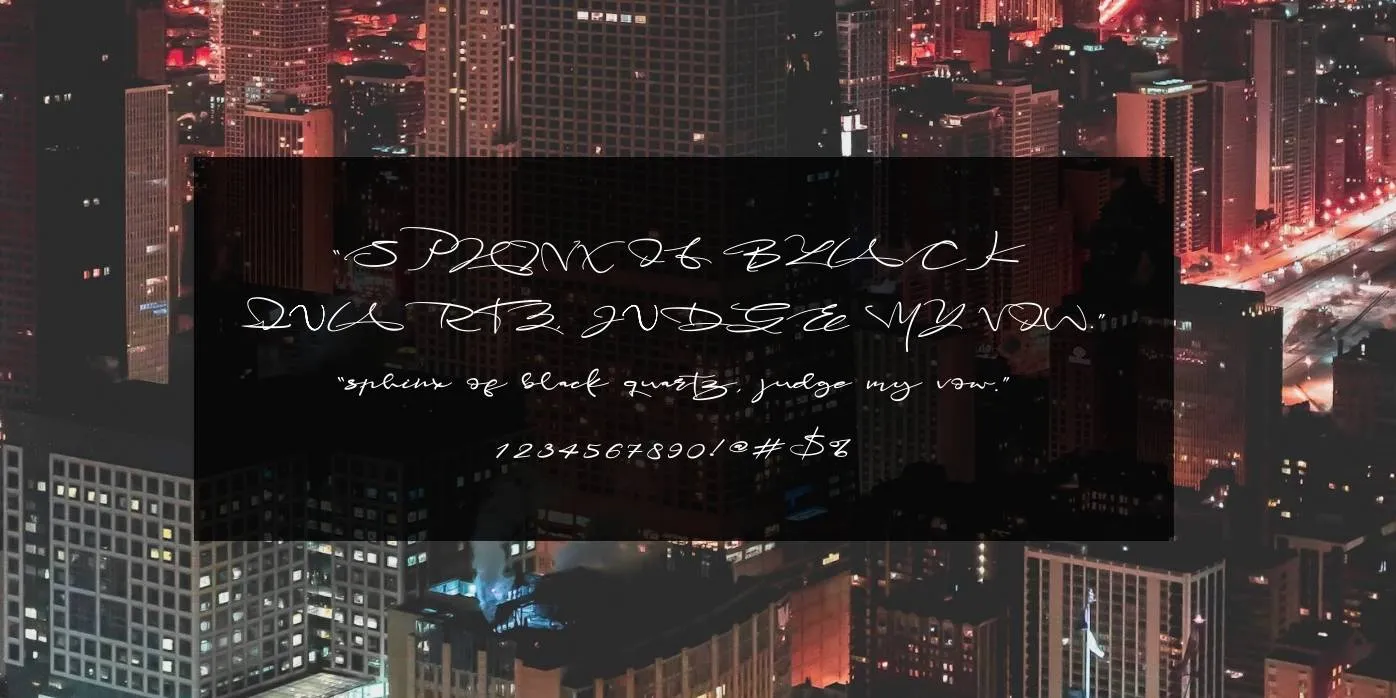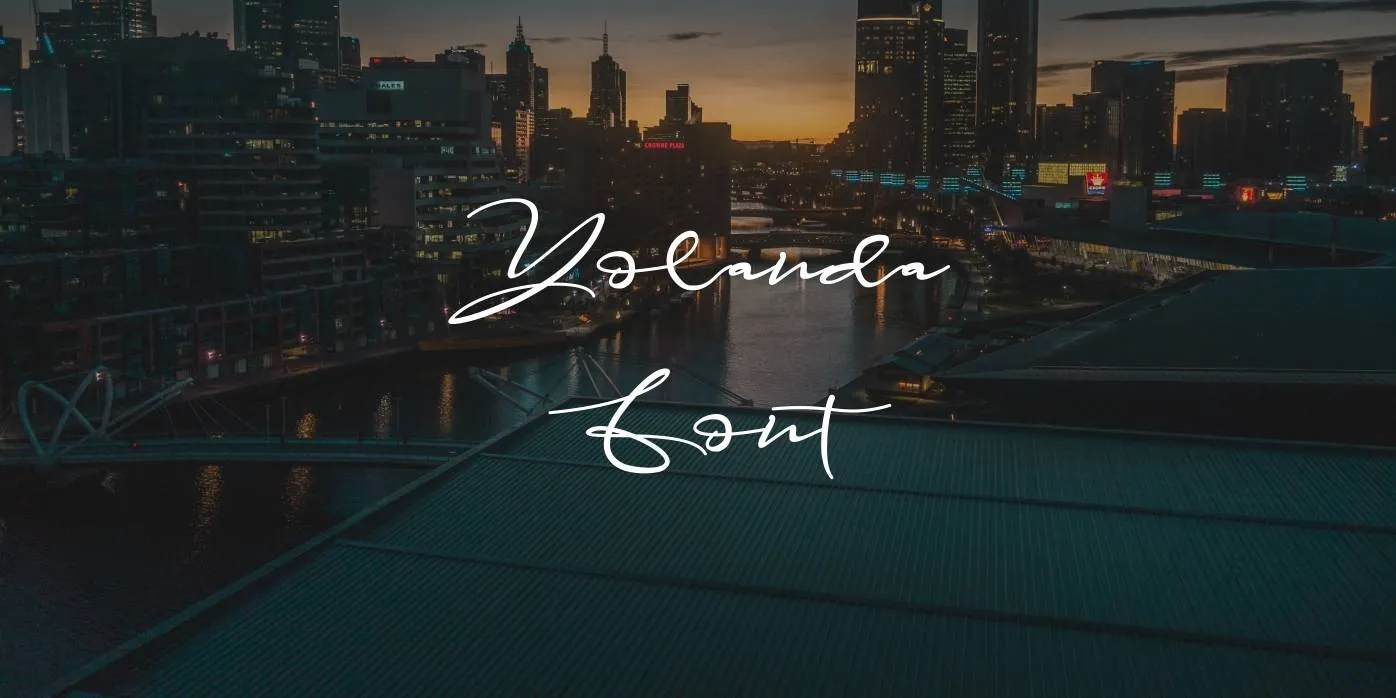
Yolanda Font
Here, we present a very classy font family that is famous with the name Yolanda Font. This family belongs to the Script family. This awesome font family was designed by Alqawoms. This stylish font family was published for the first time by Nontype.
The Yolanda Font family comes with a unique and attractive design. This family includes many features such as discretionary ligatures, contextual alternates, fractions, stylistic sets, swashes, and more. This remarkable font supports up to 12 different styles. And each style has more than 508 glyphs.